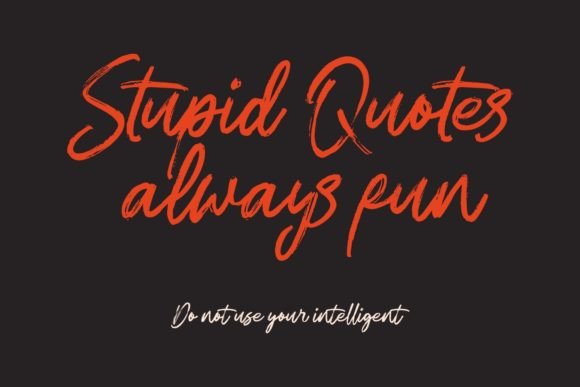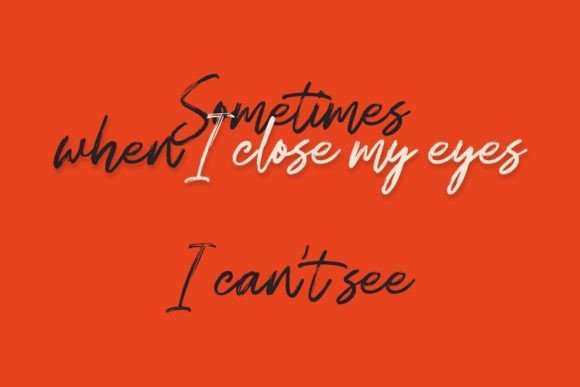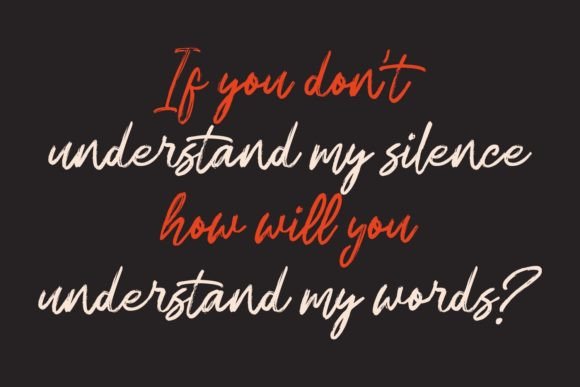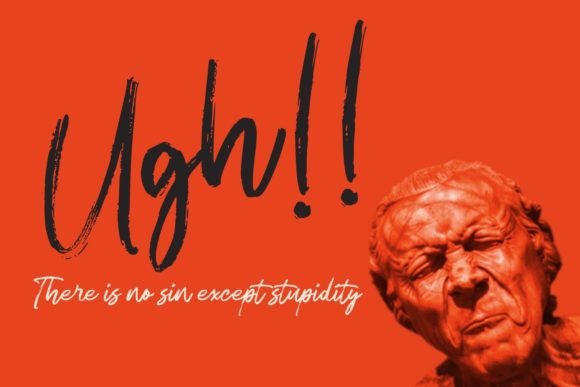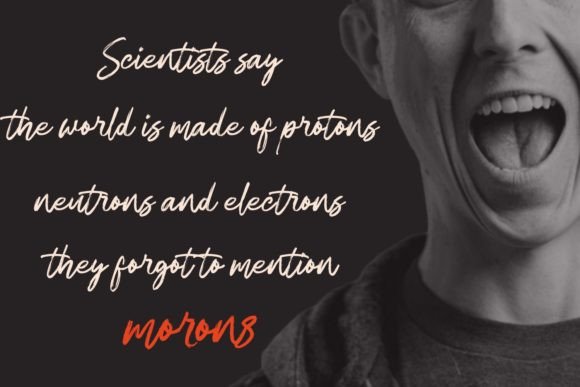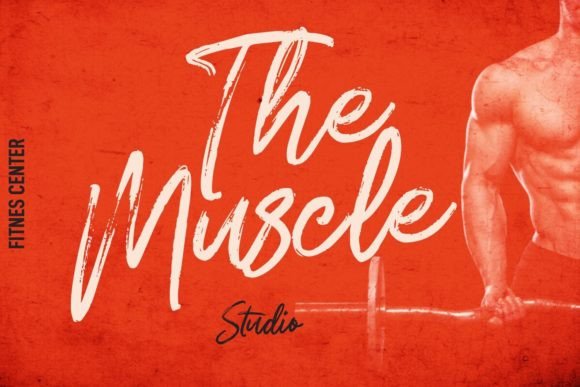
Grittsy Souls Font: Unleash Your Creative Potential with this Signature Brush Script
Are you a designer, crafter, or DIY enthusiast looking for a unique and captivating font to elevate your projects? Look no further than Grittsy Souls, a stunning signature brush script font that is sure to leave a lasting impression. With its bold, expressive strokes and eclectic charm, Grittsy Souls is the perfect addition to any creative endeavor.
The Story Behind Grittsy Souls
Grittsy Souls is more than just a font – it’s a reflection of the creative soul. Designed with passion and dedication, this signature brush script font embodies the perfect blend of grit and sophistication. Whether you’re working on a branding project, crafting a handmade product, or simply looking to add a personal touch to your digital creations, Grittsy Souls is the ideal choice.
What Makes Grittsy Souls So Special?
So, what sets Grittsy Souls apart from other fonts? Here are just a few reasons why this font is a cut above the rest:
- Unique Brush Script Style: Grittsy Souls boasts a distinctive brush script style that adds a touch of personality to any project. Its bold, expressive strokes and fluid movements make it perfect for creating eye-catching headlines, titles, and quotes.
- High-Quality Design: Crafted with precision and attention to detail, Grittsy Souls is a high-quality font that is both versatile and reliable. Its clean lines and smooth curves ensure that your text looks crisp and professional, even at large sizes.
- Perfect for a Variety of Projects: Whether you’re working on a logo, brochure, website, or social media graphics, Grittsy Souls is the perfect choice. Its eclectic charm and sophisticated style make it suitable for a wide range of applications, from creative crafts to commercial branding.
How to Use Grittsy Souls in Your Projects
Ready to unleash your creative potential with Grittsy Souls? Here are a few ideas to get you started:
- Create Stunning Logos: Use Grittsy Souls to craft a unique and memorable logo that captures the essence of your brand. Its bold, expressive strokes make it perfect for creating eye-catching logos that stand out from the crowd.
- Design Beautiful Quotes and Posters: Add a touch of elegance and sophistication to your quotes and posters with Grittsy Souls. Its fluid movements and clean lines make it perfect for creating stunning text-based designs.
- Elevate Your Handmade Products: Take your handmade products to the next level with Grittsy Souls. Use it to add a personal touch to your packaging, labels, and marketing materials, and watch your products stand out from the competition.
Why Designers and Crafters Love Grittsy Souls
Grittsy Souls has quickly become a favorite among designers and crafters, and it’s easy to see why. Here are just a few reasons why this font has captured the hearts of creatives around the world:
- Unique and Authentic: Grittsy Souls is a one-of-a-kind font that adds a touch of authenticity to any project. Its distinctive brush script style and eclectic charm make it perfect for designers and crafters who want to stand out from the crowd.
- Easy to Read and Understand: Despite its bold and expressive strokes, Grittsy Souls is incredibly easy to read and understand. This makes it perfect for creating text-based designs that are both beautiful and functional.
- Perfect for Branding and Marketing: Grittsy Souls is an excellent choice for branding and marketing projects. Its sophisticated style and elegant charm make it perfect for creating professional-looking logos, brochures, and marketing materials.
In conclusion, Grittsy Souls is a signature brush script font that is sure to elevate your creative projects to new heights. With its unique and authentic style, high-quality design, and ease of use, it’s the perfect addition to any design or crafting project. So why wait? Download Grittsy Souls today and unleash your creative potential!